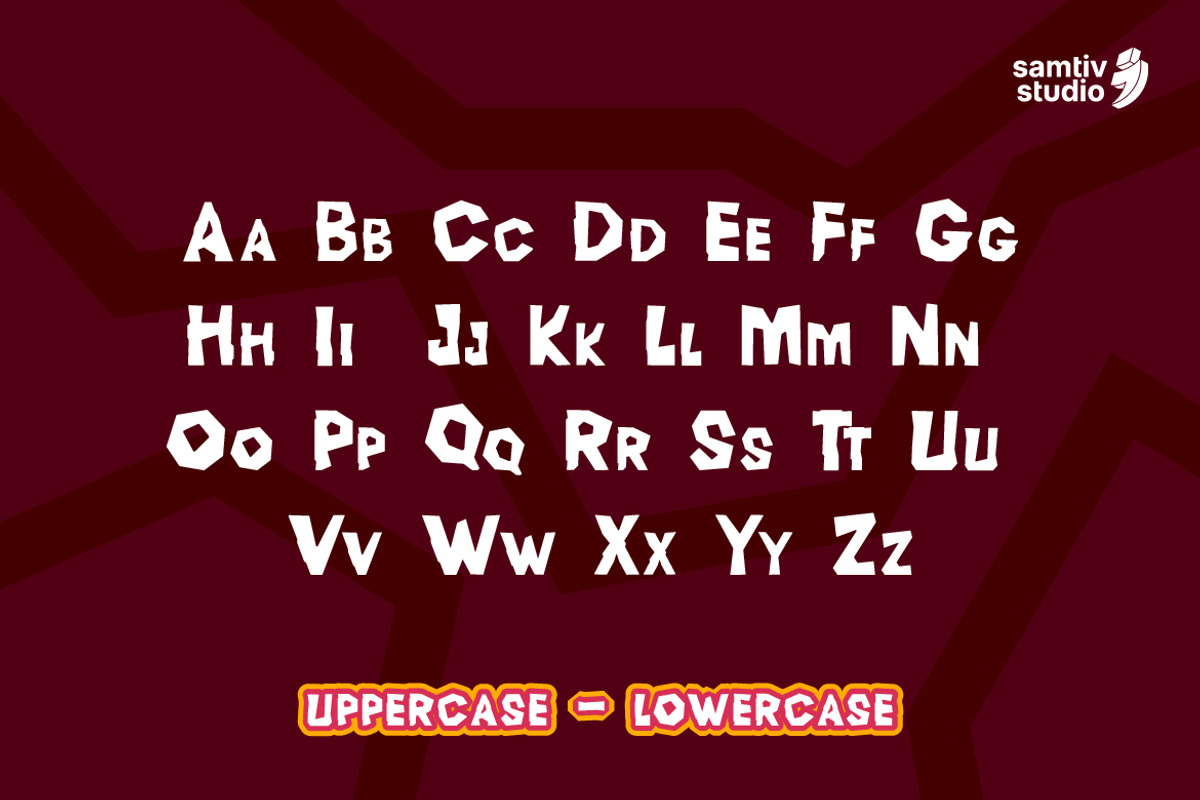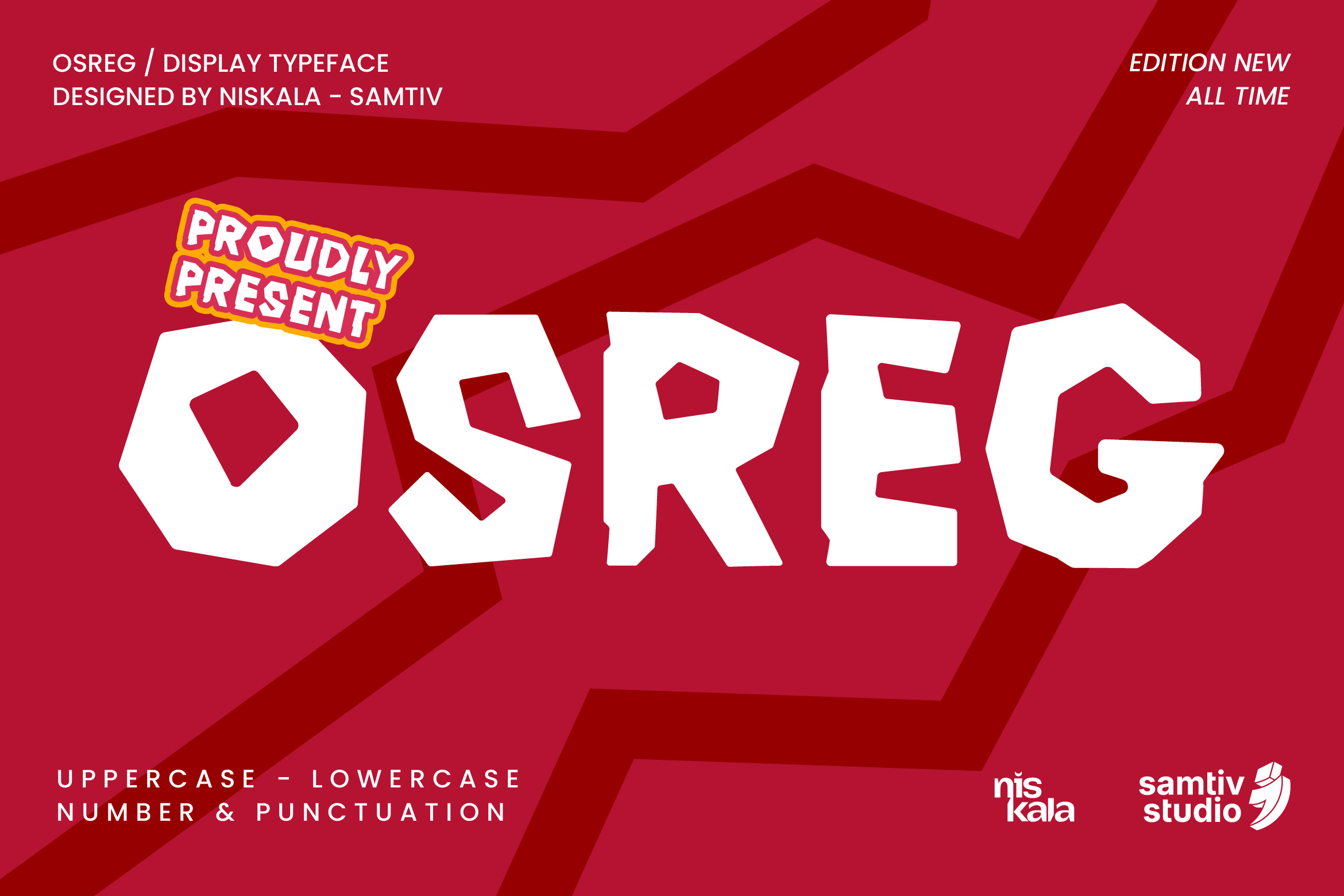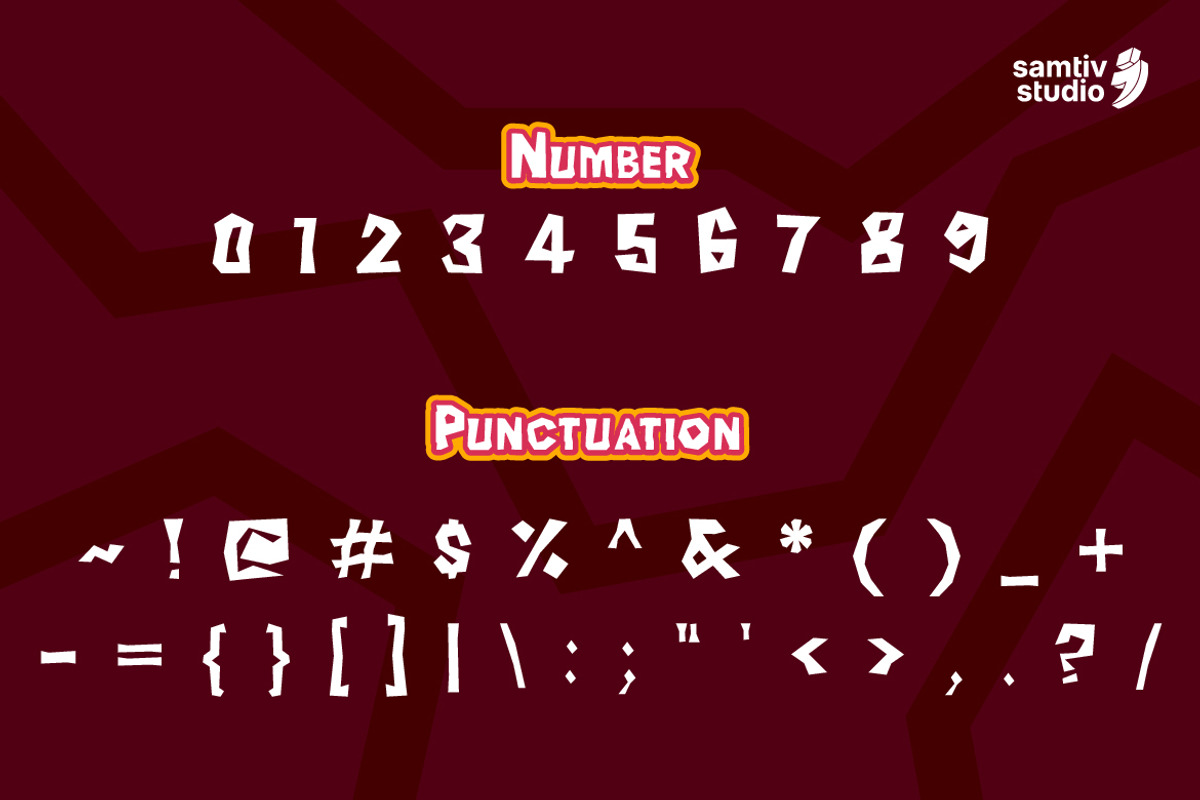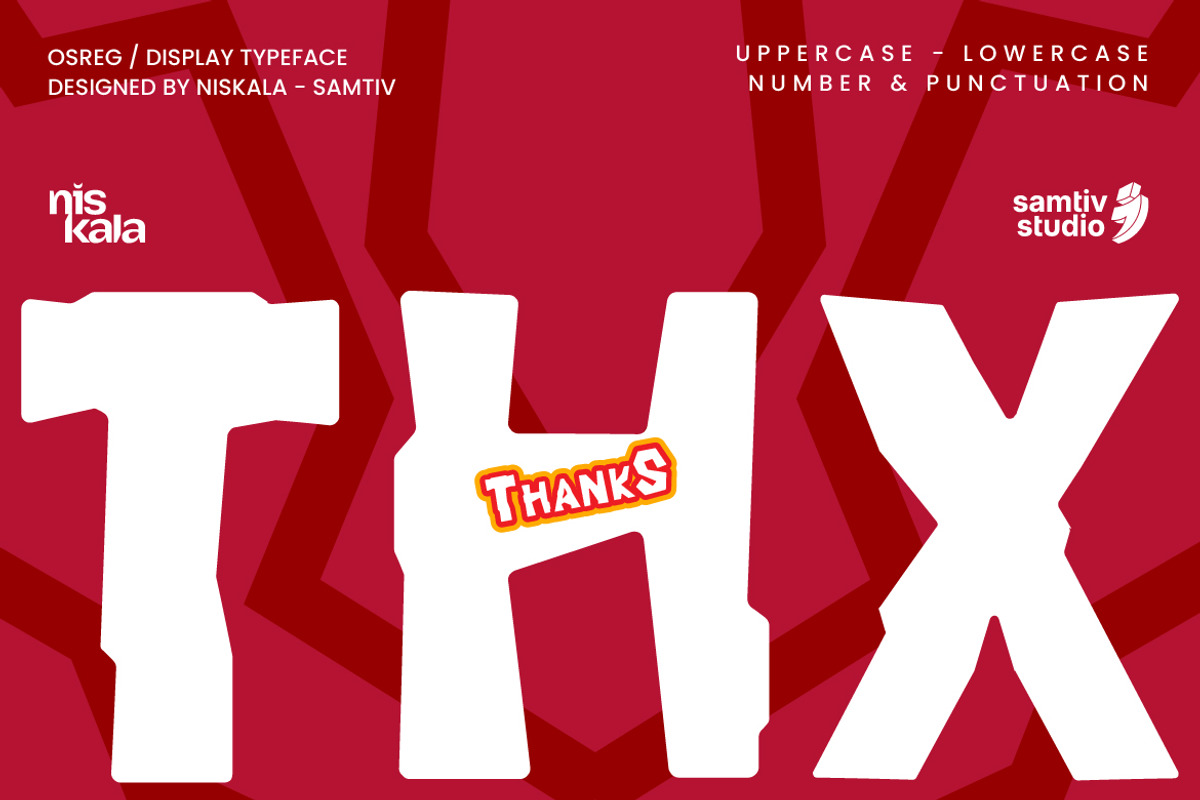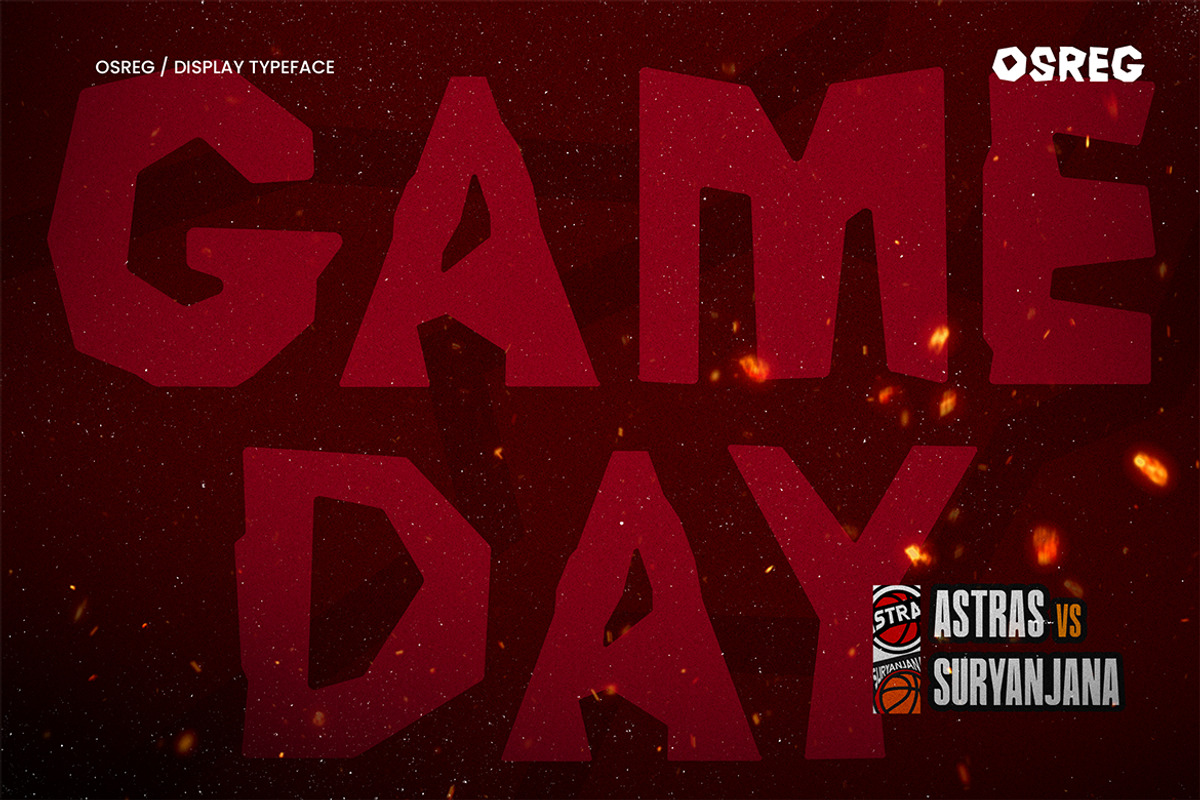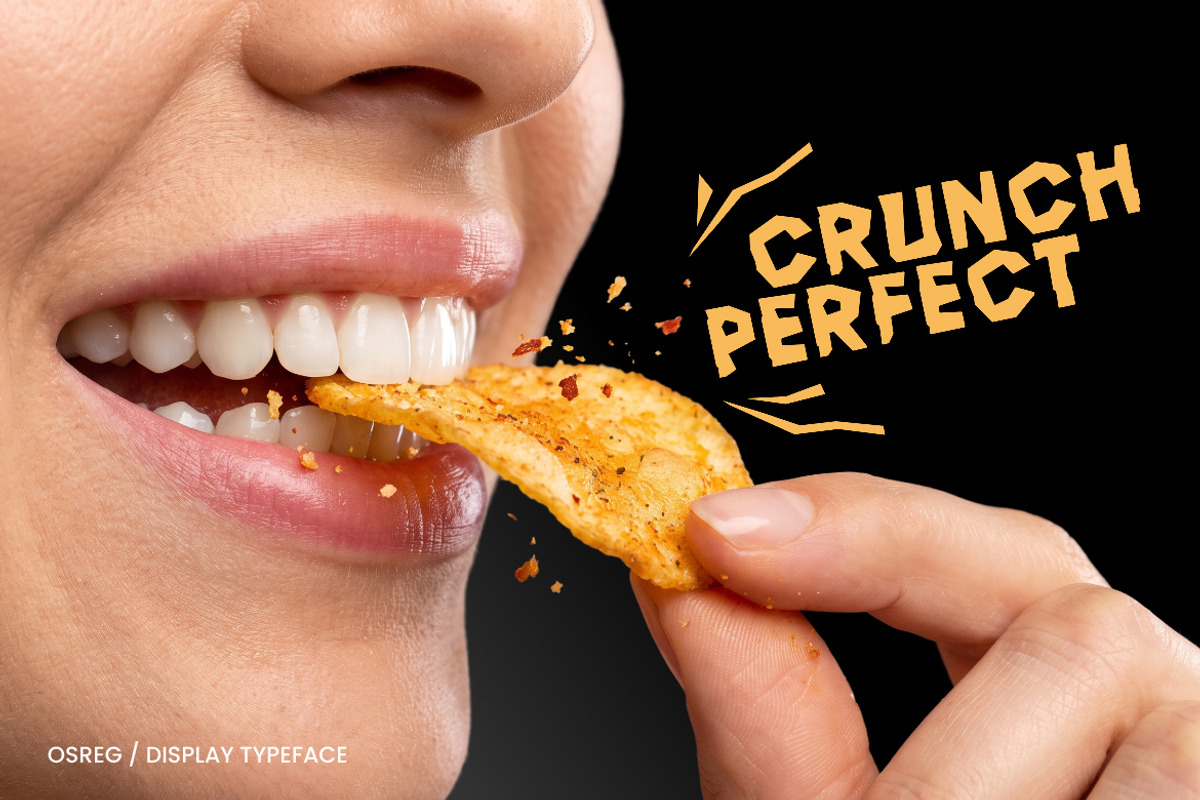
OSREG - A Abstract Display Font
Unleash bold creativity with Osreg, a playful yet edgy display typeface featuring chunky, paper-cut, and stone-carved geometric letterforms. Perfectly crafted for eye-catching logos, gaming graphics, poster designs, children's books, and vibrant merchandise, Osreg includes uppercase, lowercase, numbers, and punctuation to give your branding a fun, energetic, and unforgettable touch.